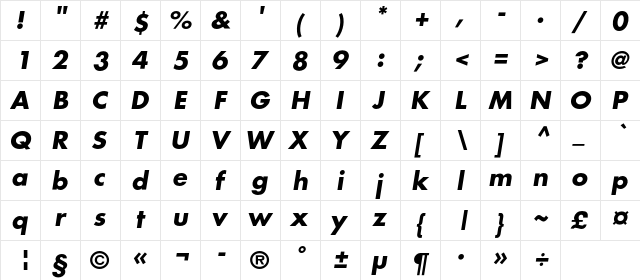
FavoritC Bold Italic Font Preview
FavoritC Bold Italic
Design Context for FavoritC Typeface
FavoritC is a composed and adaptable typeface that performs quietly and consistently across a wide range of design contexts. The dynamic lean of this cut emphasises speed and emphasis in any layout. Its bold stroke weight gives it real presence on the page.
Pro Tip: Try FavoritC for annotation and caption copy alongside an upright companion — the contrast in angle creates a dynamic but ordered typographic system.